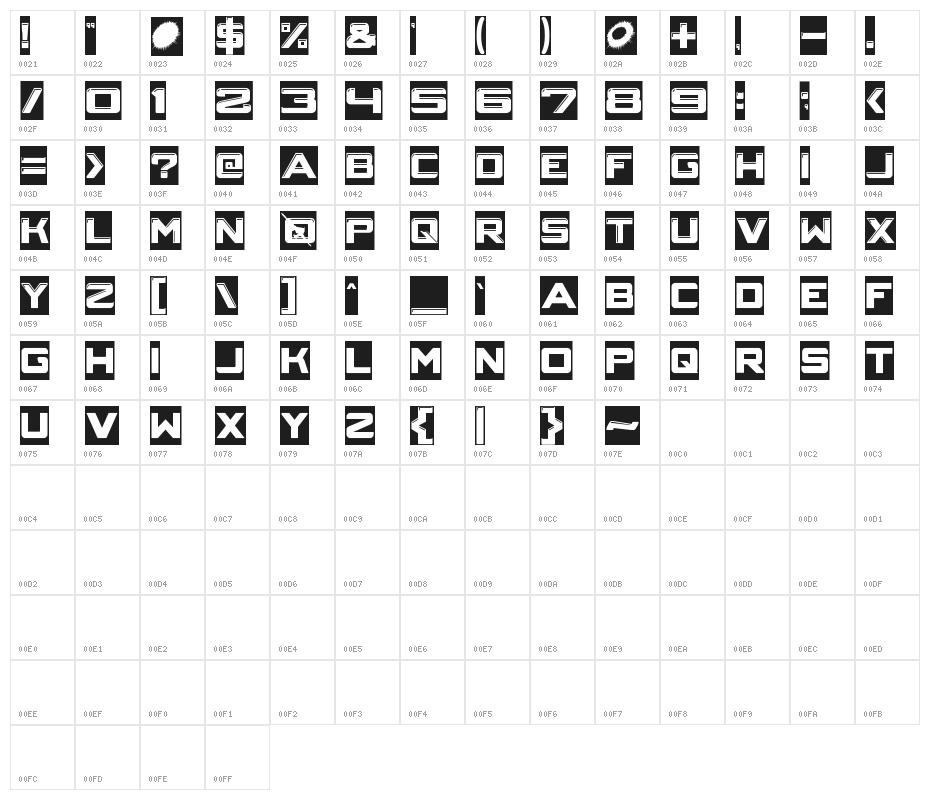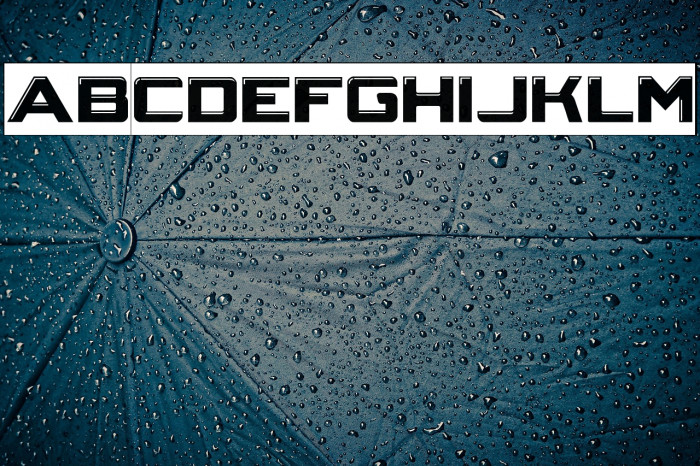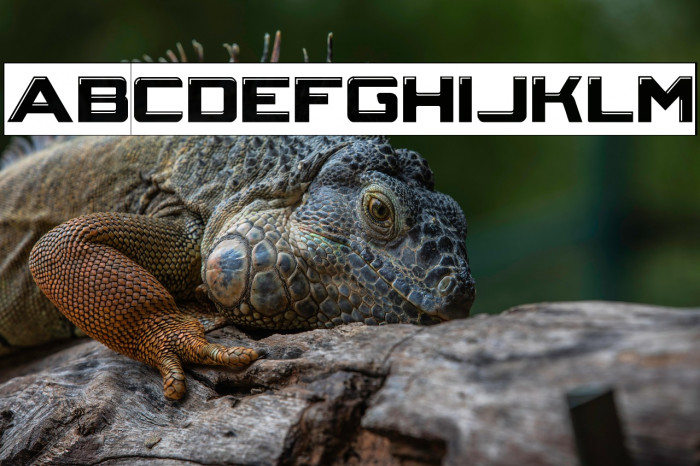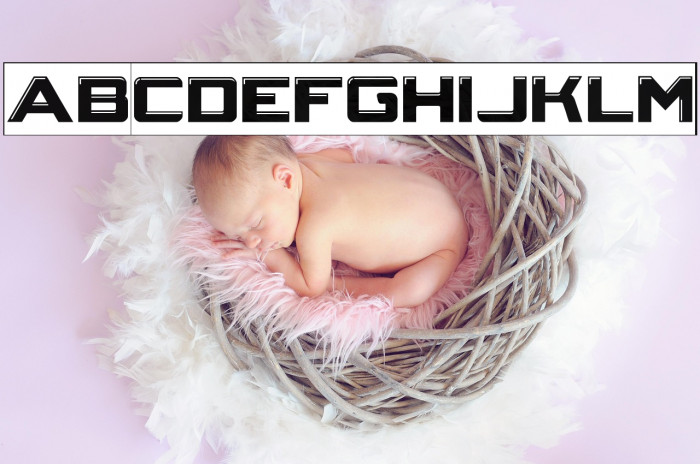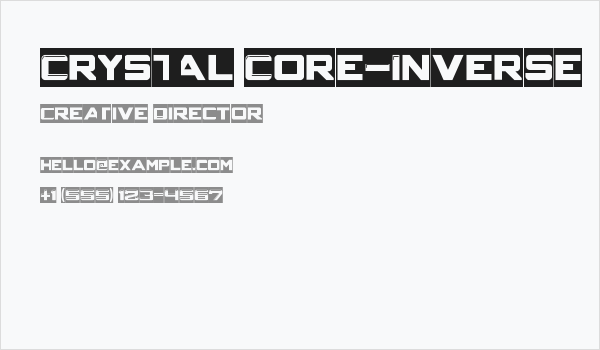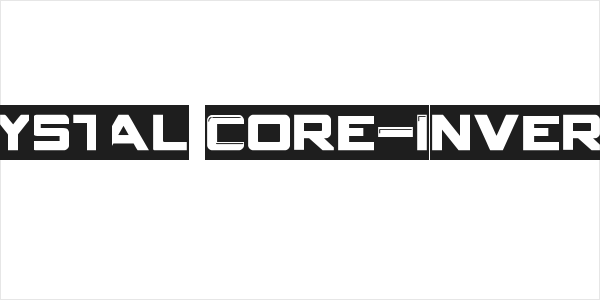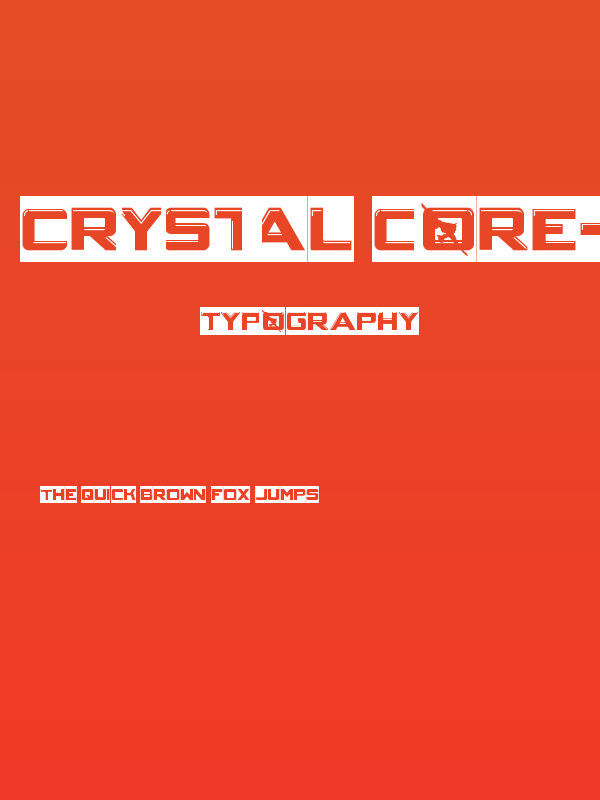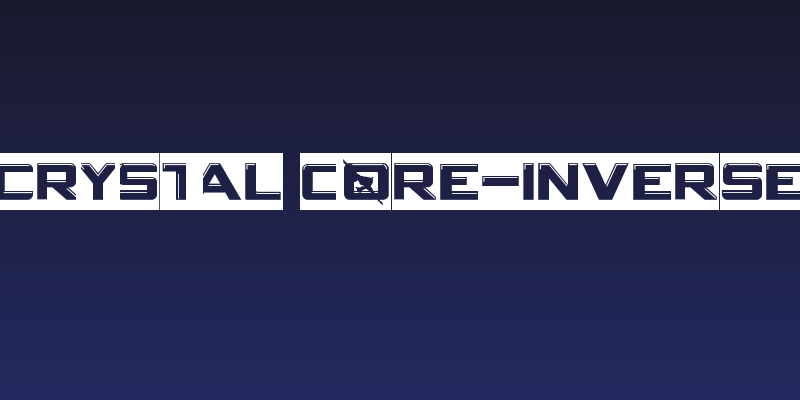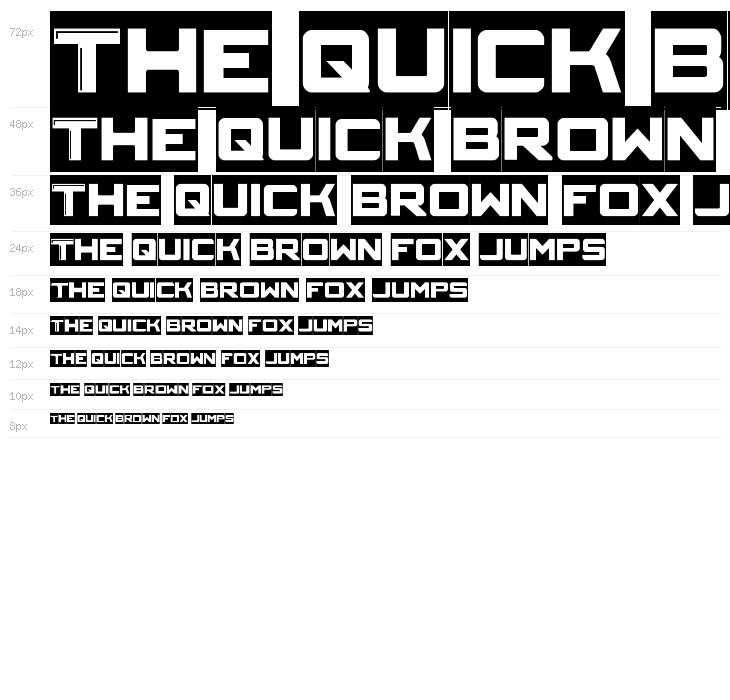
Crystal Core-Inverse Font
Crystal Core-Inverse Description
This font features a bold, futuristic design with sharp, angular edges and a distinct geometric style. The uppercase letters are characterized by their strong, solid forms, while the lowercase letters maintain a consistent aesthetic with slightly softer curves. The numerals are equally bold, ensuring readability and impact. Special characters are uniquely styled, adding to the font's overall modern and edgy appearance. The font's design is perfect for projects that require a strong visual presence, such as technology-related branding or sci-fi themed graphics.
| Proposed Projects | Ideal for technology branding, sci-fi themes, video game titles, and modern posters. |